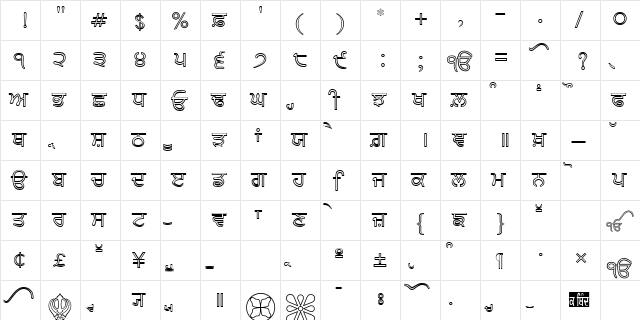
AmrNeon Regular
Design Context for AmrNeon Typeface
AmrNeon channels digital-age aesthetics through its sharp, structured letterforms — ideal for brands that want to signal innovation.
Pro Tip: Use AmrNeon in combination with a neutral sans for body text. Let it define the brand voice in headlines while keeping reading comfortable elsewhere.